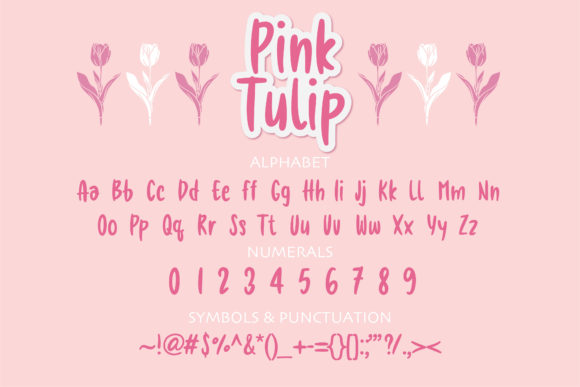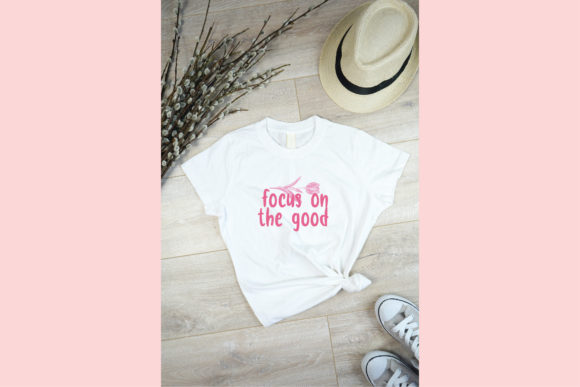
Pink Tulip Font
db-ku.com - Script & Handwritten -- Pink Tulip is a cute and flexible handwritten font. Its natural and unique style makes it incredibly fitting to a large pool of designs. Have fun with this beautiful font and explore its endless variation. It looks stunning on wedding invitations, thank you cards, quotes, greeting cards, logos, business cards, and every other design which needs a handwritten touch.